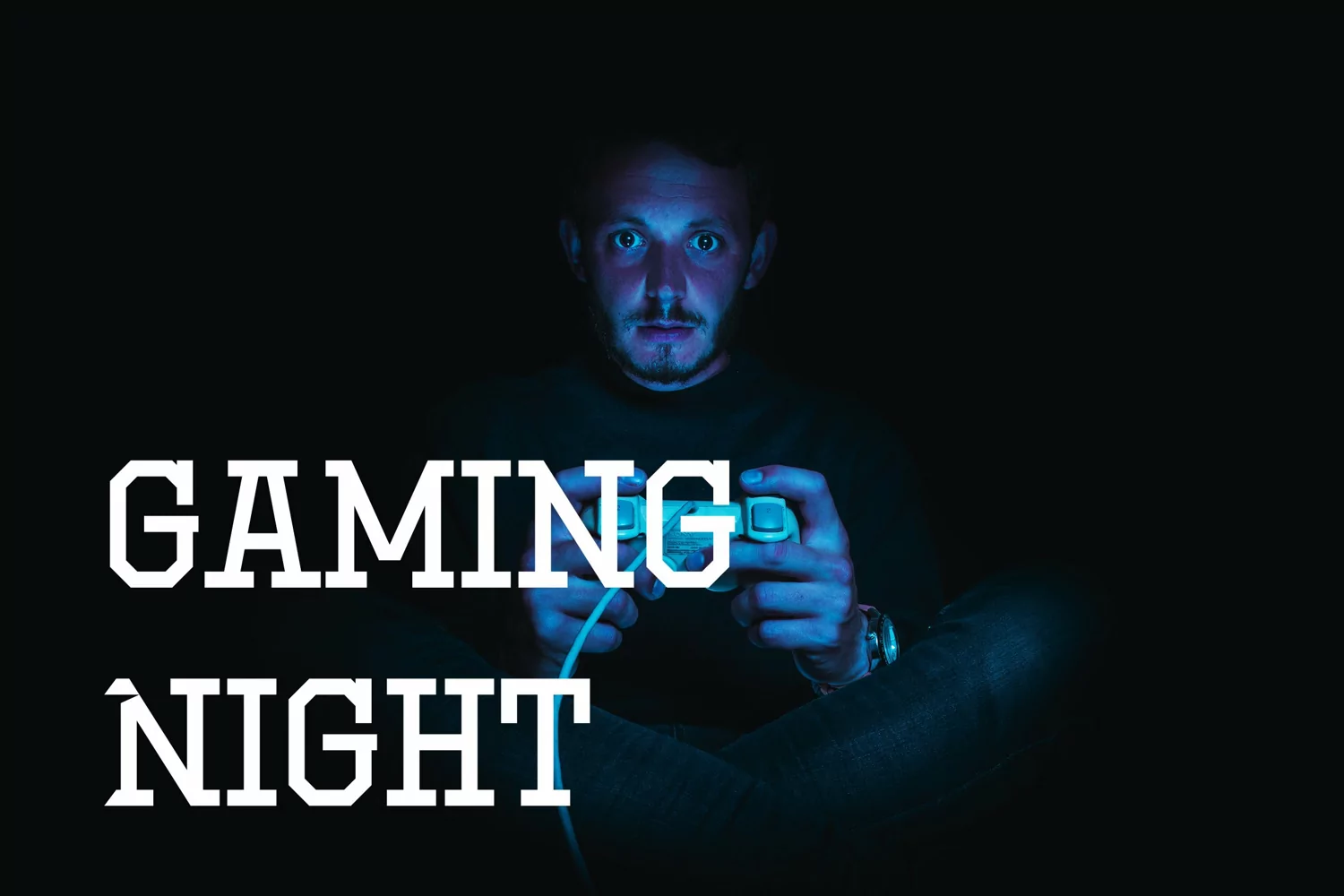
Jerseyside - E Sports Font that contain lowercase, uppercase, symbol, and also support multi language. There’s a lot ligatures in this font. This Font also comes with ligatures, alternates and many more. this font suitable for fashion, branding, catalog and other design what you want.